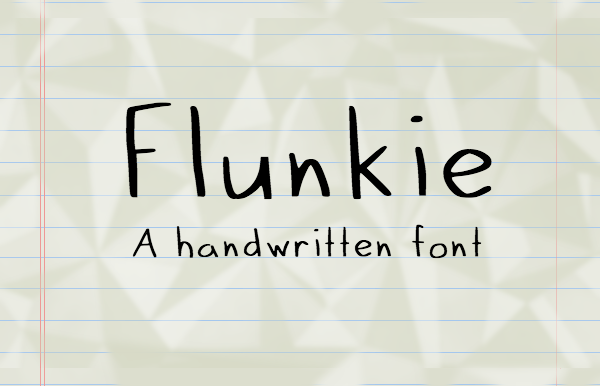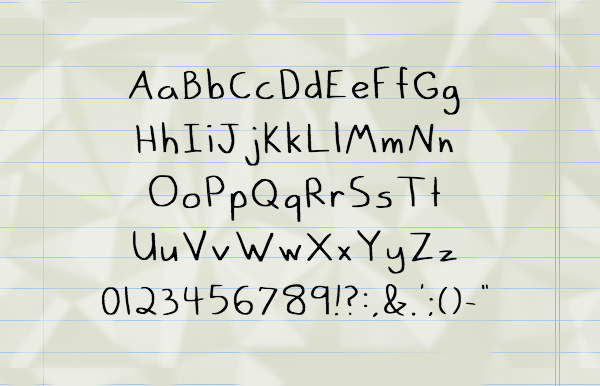
HomeScript FontsFlunkie Font Script Fonts Flunkie Font FacebookXPinterestWhatsApp Flunkie Font Poster 2 About Flunkie Font Flunkie, a clean, handwritten font. DOWNLOAD ON CREATIVE FABRICAThis font is sold and delivered by Creative Fabrica. Font Canyon may earn a commission if you buy through this link. People also explored Cheese Font Nikola Font Soft Pumpkin Font TapeHead Gans Blasones Font Kandel Font Aqua Font Valent Lovey Font Masato Family Font 271 0 TagsFlunkie Font Previous articleBallpen and Chalk FontNext articleKiss Me or Not Font LEAVE A REPLY Cancel reply Comment: Please enter your comment! Name:* Please enter your name here Email:* You have entered an incorrect email address! Please enter your email address here Website: Save my name, email, and website in this browser for the next time I comment. Personal Use Free Quentin Personal Use Free Read more about this font BD Console Personal Use Free Read more about this font Love Ya Personal Use Free Read more about this font Spaghetti Personal Use Free Read more about this font BLOG Transform Your Website: Elevate Your Typography with 7 Best Web Font Generators Are you ready to transform your website's typography from ordinary to extraordinary? Great! Today, we're diving into the world of web font generators, which... Elegant Wedding Invitation Fonts – Handwritten & Script Fonts To increase your work productivity, choose the most readable fonts. Top 7 Google Fonts Alternatives for Faster and Privacy-Friendly Web Design (2025)